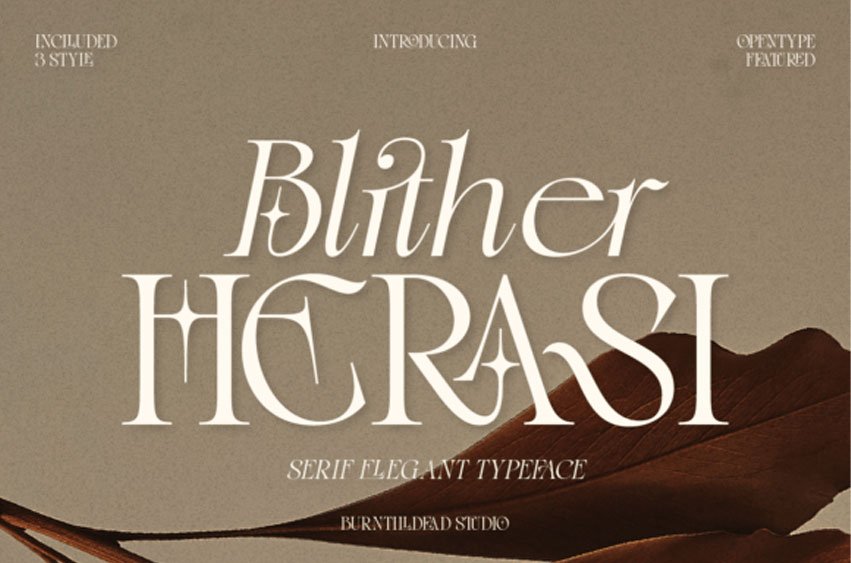
Blither Herasi Font is an exquisite serif typeface adorned with a sublime blend of contemporary aesthetics and a hint of Gothic elegance. With its dramatic flair and posh style, Blither Herasi encapsulates the essence of sophistication, making it an ideal candidate for high-end branding, editorial motifs, couture projects, distinctive logos, and beyond.
The intriguing curves and the timeless semblance of Blither Herasi inject any design with an avant-garde yet polished edge. It’s a serif typeface with a difference – dressed in classy sophistication yet splashed with an edgy gothic essence that lends an artistic and mysterious undertone to your creations.
Accommodating creative ideals in its stride, this typeface offers three distinct styles – Regular, Italic, and Oblique. These options let you drape your design projects in high-fashion aesthetics, inspire them with a vintage mood, or stun the viewer with a remarkable logo.
Blither Herasi is not just a font; it’s a complete toolkit. Apart from the uppercase and lowercase from A-Z, numbers, and punctuation, the typeface includes alternates, ligatures, and multilingual support. The generous character map file of Blither Herasi further enriches your design possibilities.